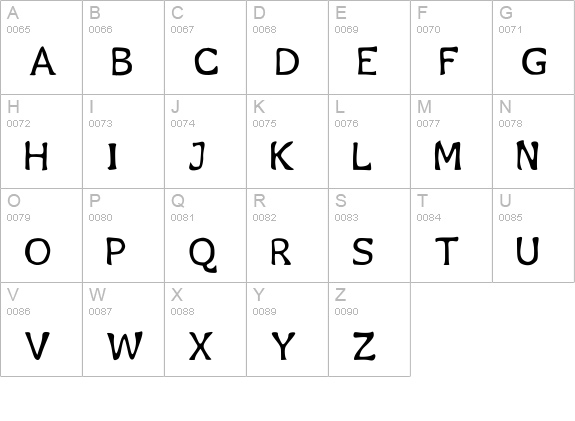
Jecko Legacy Font Details
Jecko Legacy is a captivating and versatile font that seamlessly blends tradition with modernity. With its unique and eye-catching design, this font is sure to make a lasting impression on any project or design. Featuring clean lines and elegant curves, Jecko Legacy exudes a sense of sophistication and refinement. Its timeless appeal makes it suitable for a wide range of applications, from branding and logo design to editorial layouts and website headers. But what truly sets Jecko Legacy apart is its availability as a free font. Yes, you read that right - this remarkable typeface is freely available to download at FontsMarket.com. This means that you can enhance your creative endeavors without any financial constraints, making it a perfect choice for both personal and commercial projects. Whether you're a graphic designer looking to add a touch of elegance to your work or a content creator in search of a font that will captivate your audience, Jecko Legacy is the answer. Its versatility, combined with its affordability, makes it a must-have font for any designer's toolkit. So don't miss out on the opportunity to elevate your designs with Jecko Legacy. Visit FontsMarket.com today and experience the beauty and versatility of this remarkable font.